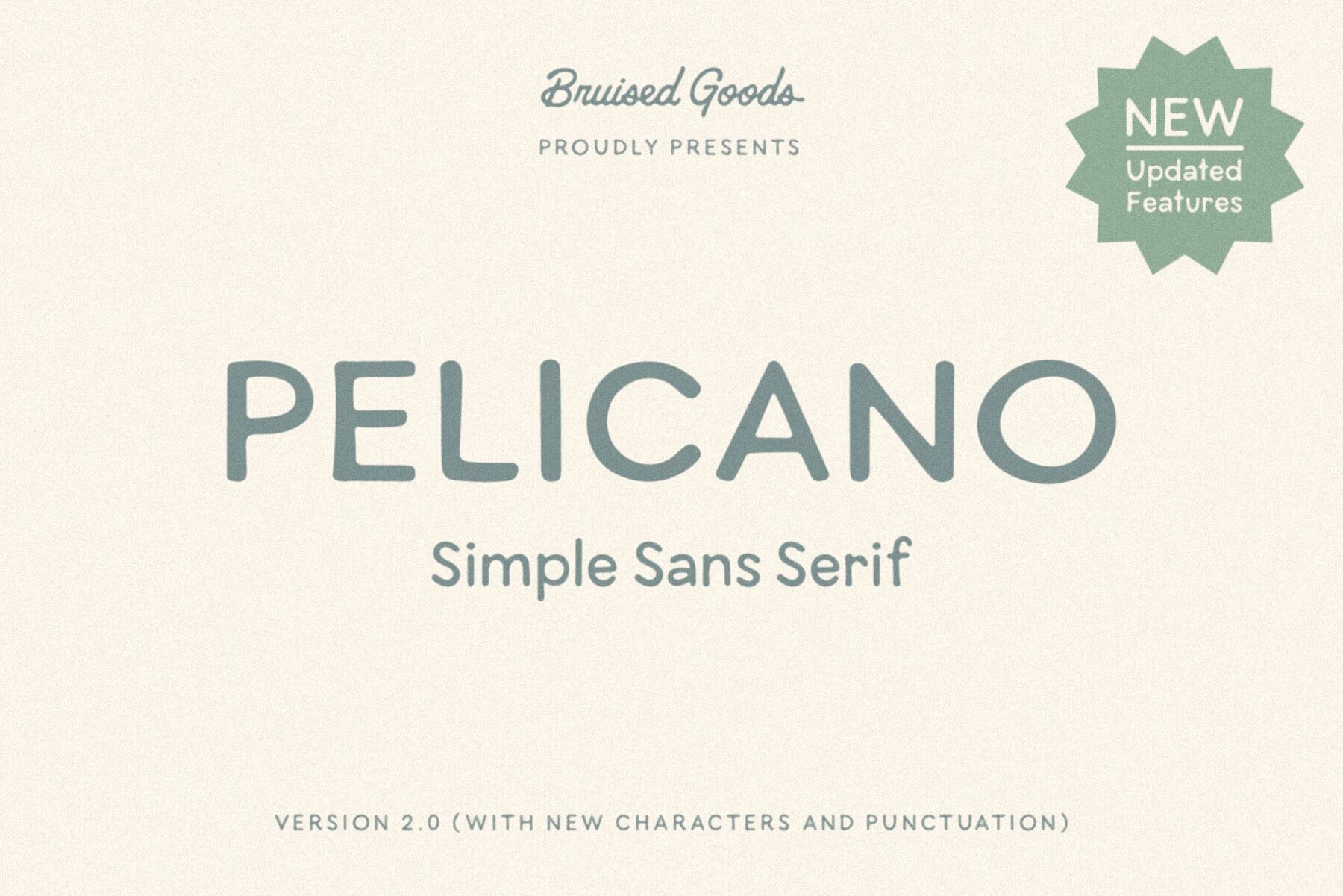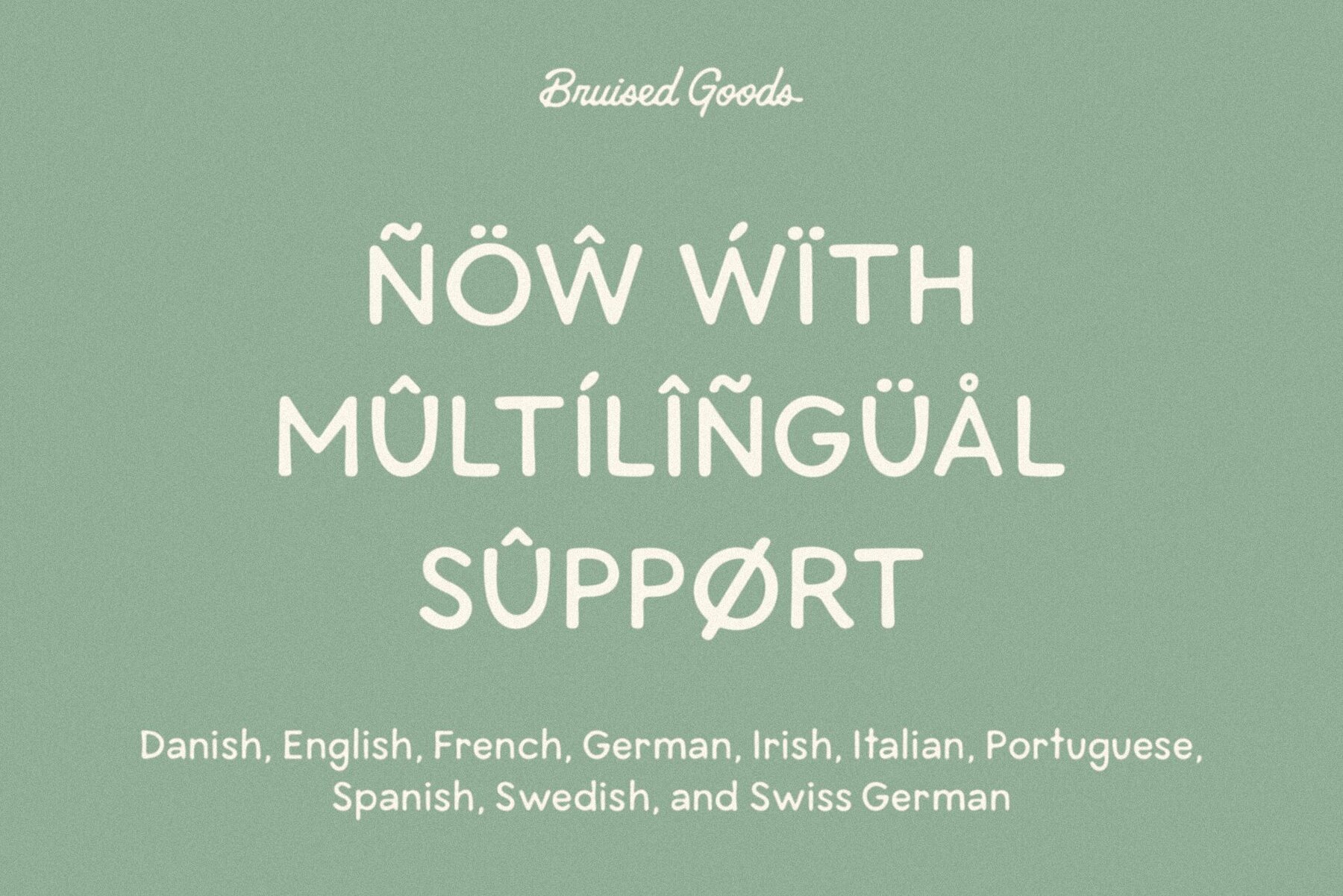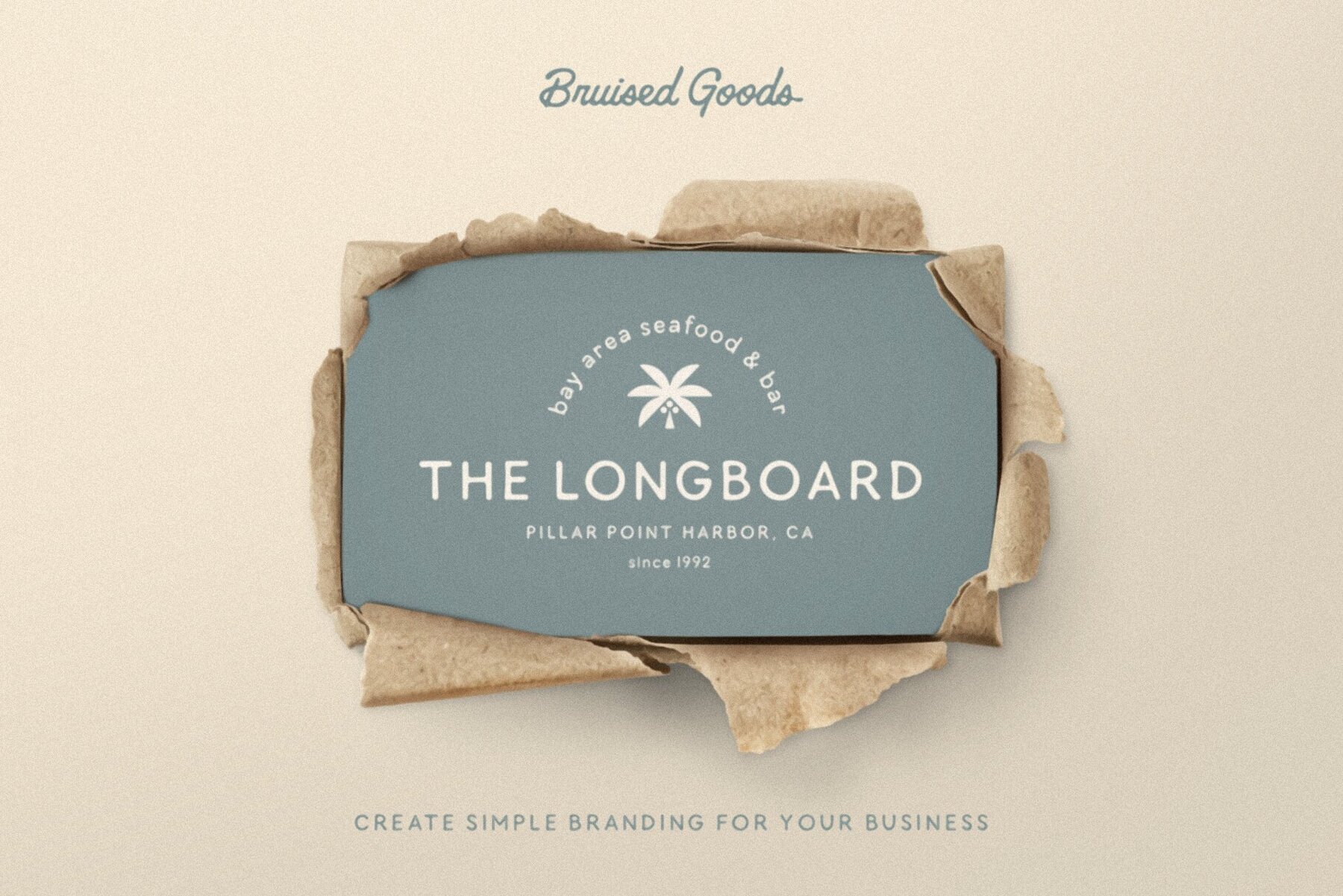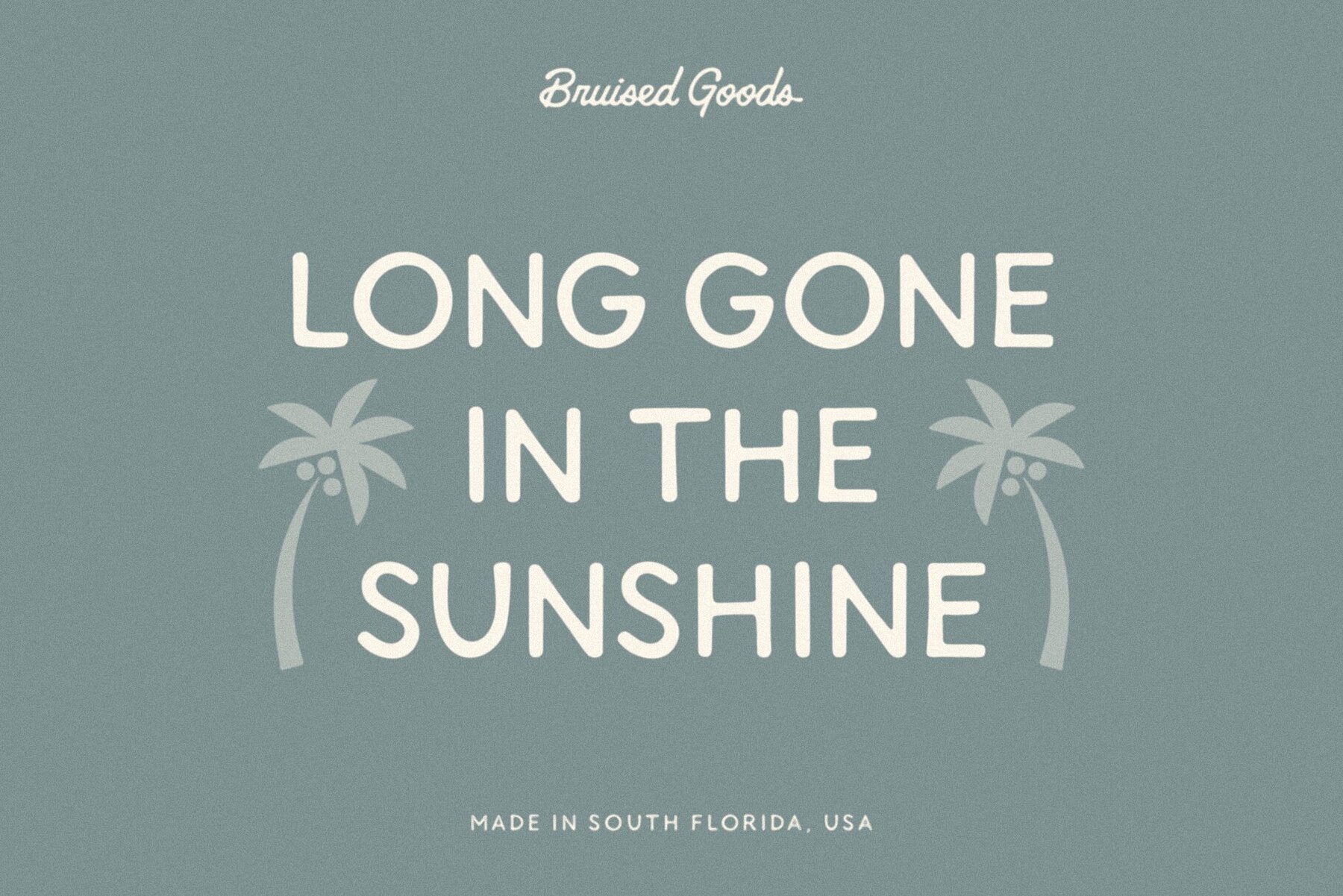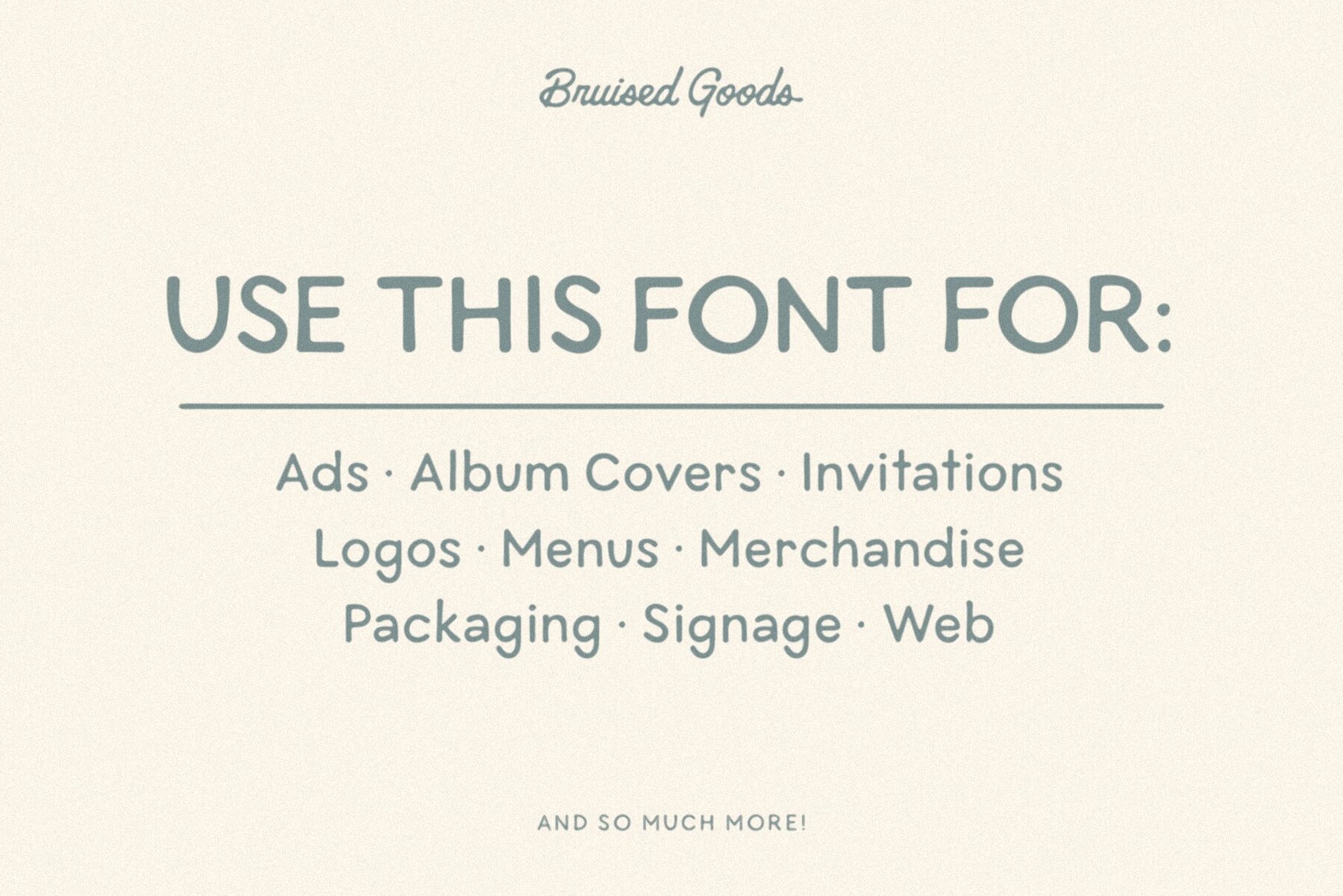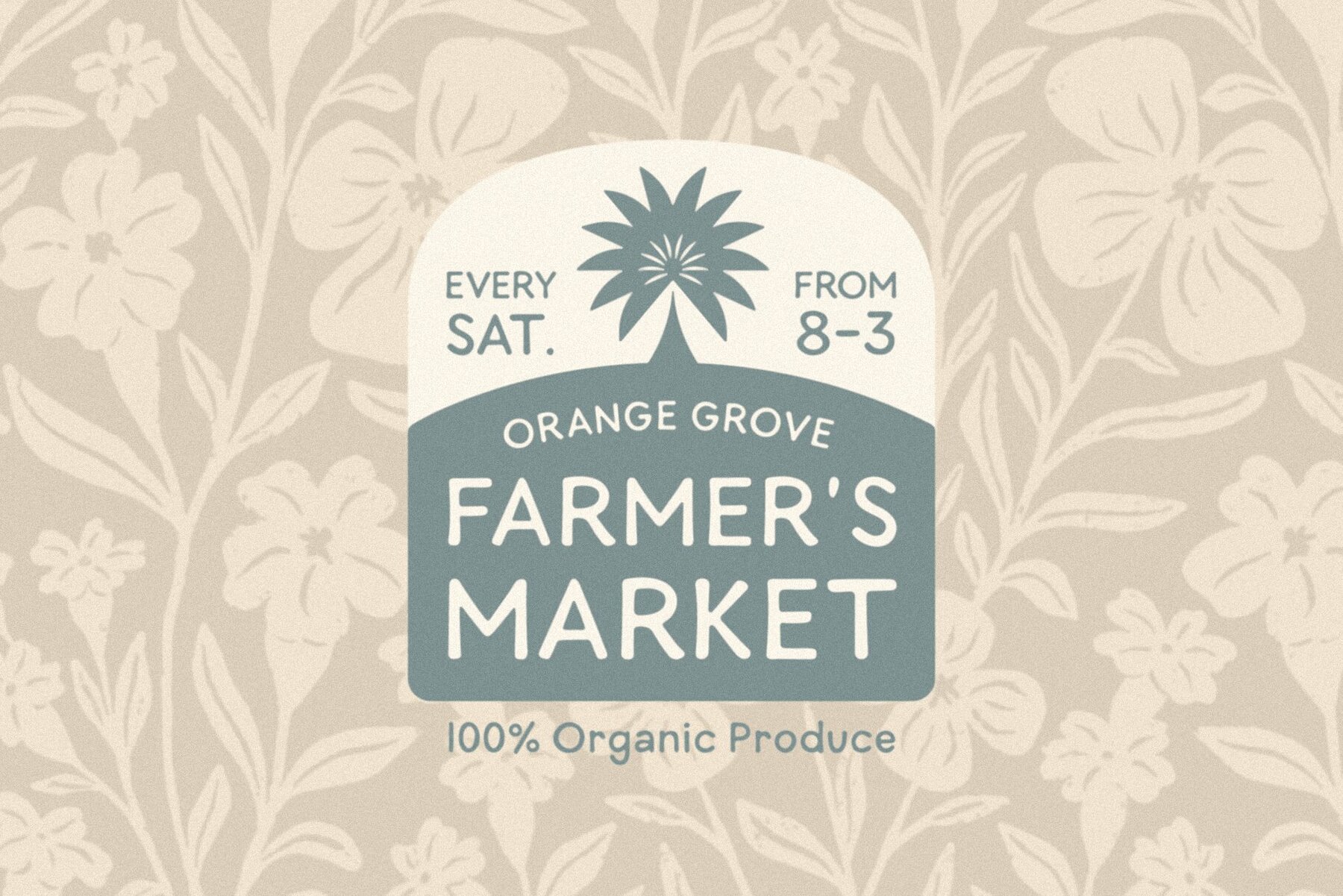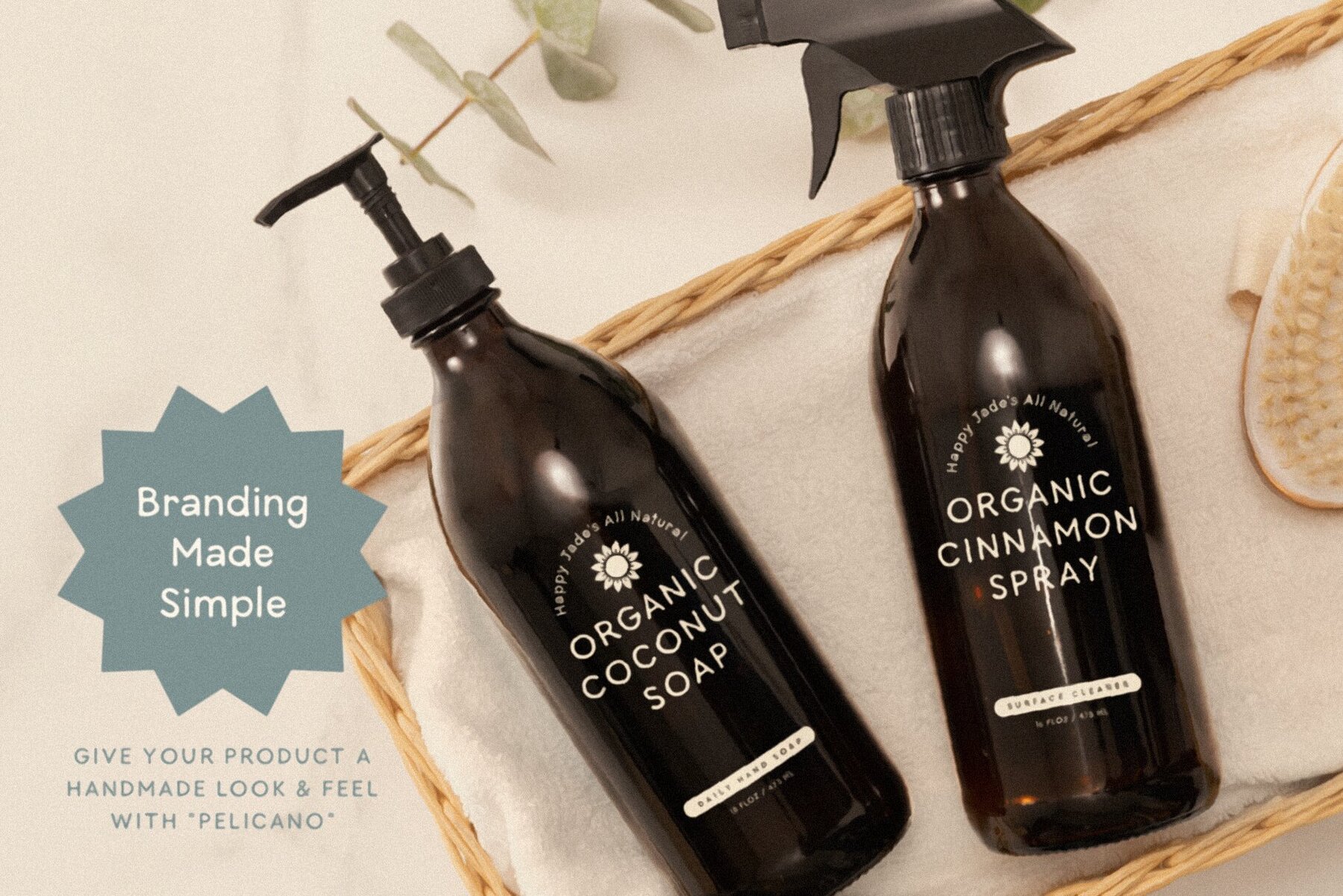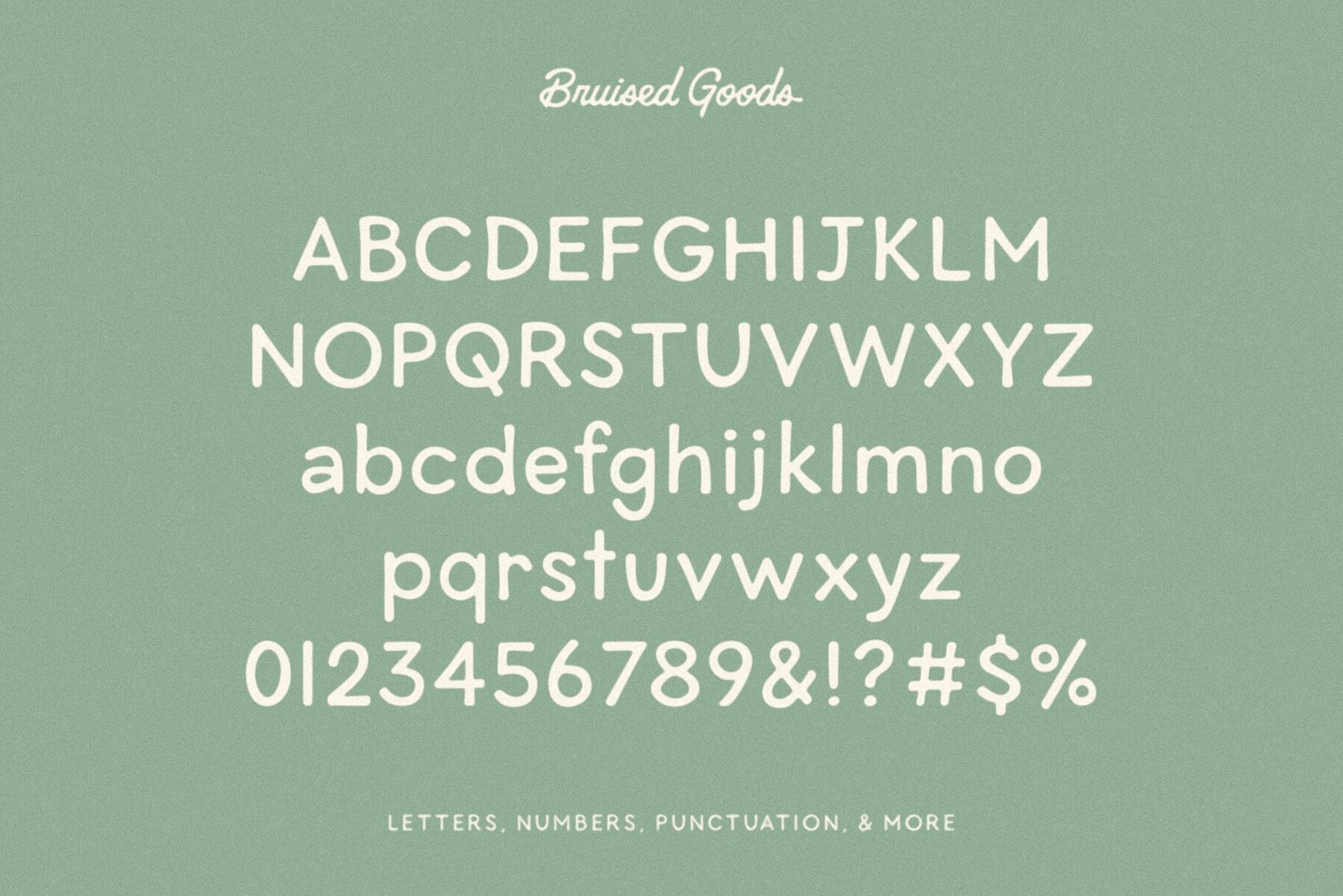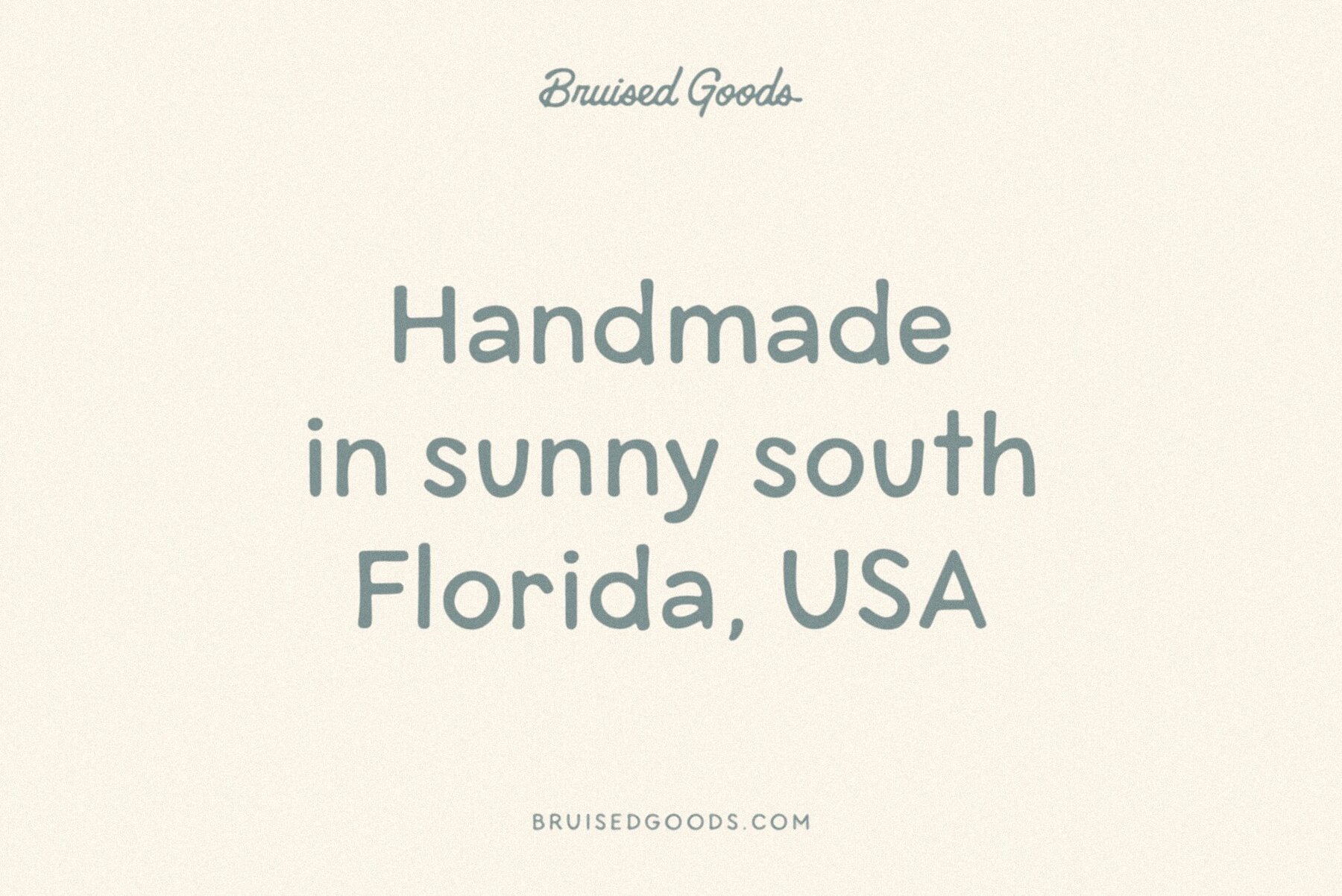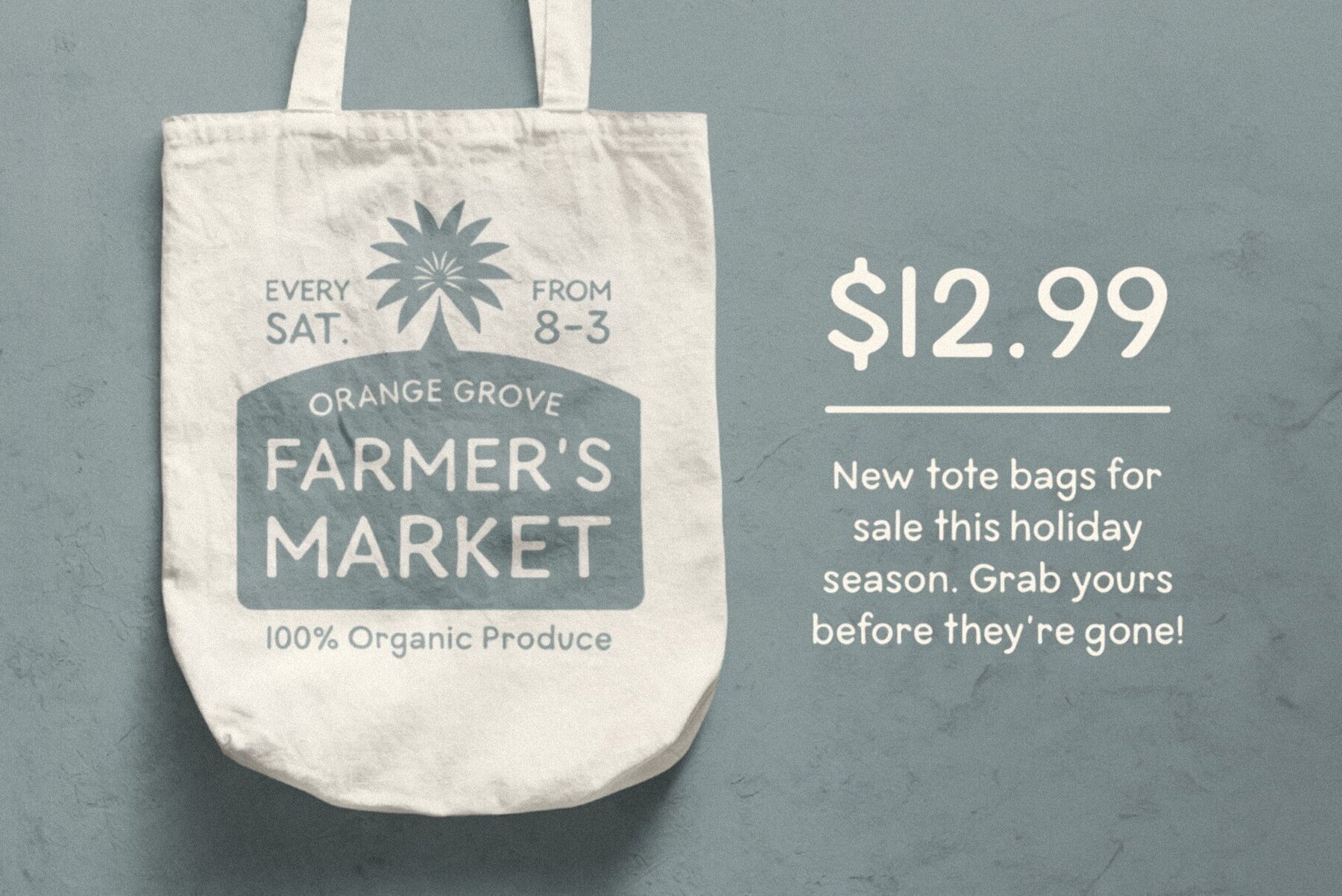
Pelicano Font
Pelicano
Introducing Pelicano, a refreshing addition to a designer's toolkit that embodies simplicity, friendliness, and remarkable versatility. Crafted by the talented Lauren Kilbane at Bruised Goods, this artisanal sans serif typeface is sourced from sunny South Florida, capturing the vibrant spirit and timeless charm of the region. The undeniable appeal of Pelicano lies in its clean, organic feel. The font is carefully sculpted to project a crisp aura - a crucial quality that emphasizes the texture and persona of your favorite products. Use Pelicano and your marketing campaigns become more engaging, your album covers resonate more deeply, and your advertisements transform into pieces of art. Features:Inspiring Creativity with Pelicano: Your New Go-To Typeface